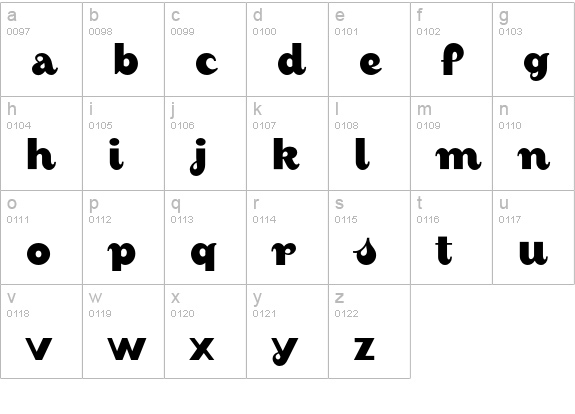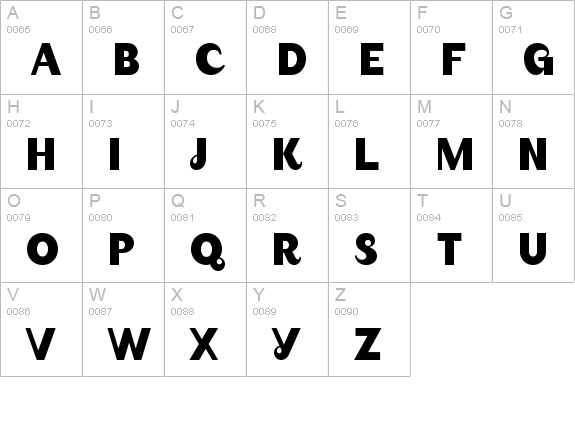
August-Bold is a strong, high-contrast variant in the August typeface family \xE2\x80\x94 well suited to headlines, attention-grabbing titles, and strong calls-to-action.
August-Bold font is a striking and powerful typeface that commands attention with its bold and dynamic appearance. Perfect for making a statement in headlines, titles, and other design projects, this font exudes confidence and strength. The thick, strong lines and sharp angles give August-Bold a modern and edgy look that is sure to stand out. And the best part? August-Bold font is available for free download at FontsMarket.com! Whether you're a designer looking to add a bold touch to your projects or a creative looking for a standout font for your next piece, August-Bold is the perfect choice. Download it now and unleash the power of this eye-catching typeface in your designs.